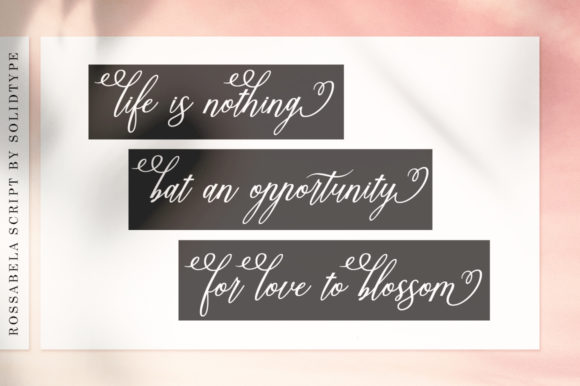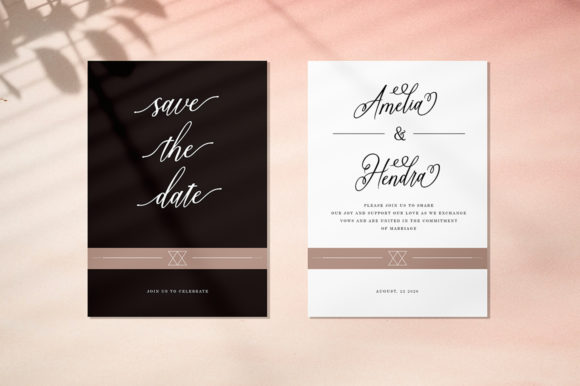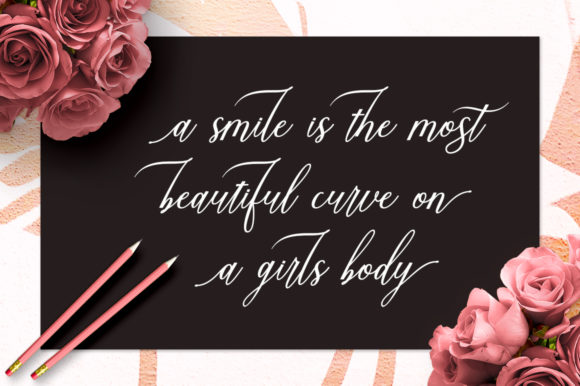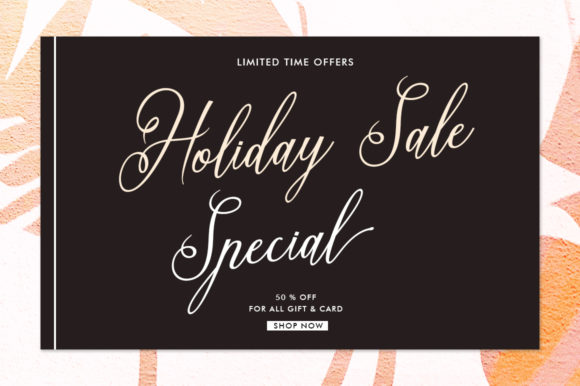
Introduction to Rossabela Font
Have you ever found yourself stuck in a creative rut, desperately searching for the perfect font to elevate your project? I know I have. It’s that moment when you’re pouring your heart and soul into a design, and then suddenly, the right font clicks into place, taking your entire project to the next level. For me, that moment happened when I stumbled upon the elegant and flowing Rossabela Font.
As a designer, I can attest to the value of having high-quality, versatile fonts at your disposal. The Rossabela Font is more than just a pretty face – it’s a design resource that will give your projects a sophisticated, contemporary feel. With its PUA encoding, you’ll have access to a wide range of glyphs and swashes, making it the perfect addition to any creative project.
Key Features of Rossabela Font
- High-quality, free font ideal for creative projects, offering a unique touch to designs.
- Transparent background, allowing for seamless integration into various design resources.
- Comes in a range of styles, suitable for a variety of creative projects, from logos to typography.
- Designed with high resolution, ensuring crisp and clear display in various resolutions.
- Perfect for designers seeking a high-quality, free design resource for their next creative project.
Honest Review: Rossabela Font
As a designer, I’m always on the lookout for high-quality design resources that can elevate my creative projects. The Rossabela Font is one such find that has impressed me with its elegant and sophisticated look.
Here are some things that work well with the Rossabela Font:
- ✨ Beautiful calligraphy-style script that adds a touch of sophistication to any design project
- ✨ Highly legible and easy to read, making it perfect for both digital and print designs
- ✨ Supports multiple languages, making it a great resource for international designs
- ✨ Comes in a variety of weights and styles, allowing for endless customization options
However, there are some limitations to keep in mind:
- ⚠️ The font may not be suitable for designs that require a transparent background, as it has a solid fill
- ⚠️ Some users may find the font’s calligraphy-style script to be too ornate for certain design projects
Designing with Rossabela Font
Rossabela Font is a high-quality design resource that can elevate your creative project to the next level. With its sleek and modern aesthetic, this font is perfect for designers who want to add a touch of sophistication to their work. One of the key features of Rossabela Font is its transparent background, which makes it easy to use in a variety of design applications.
Tips for Getting the Most Out of Rossabela Font
To get the most out of Rossabela Font, be sure to use it in conjunction with other high-quality design resources, such as images and graphics. This will help to create a cohesive and professional-looking design. Additionally, be sure to experiment with different font sizes and styles to find the perfect look for your project.
Common Use Cases for Rossabela Font
Rossabela Font is a versatile font that can be used in a variety of design applications, including business cards, brochures, and website headers. It is also a great choice for designers who want to create a modern and sophisticated look for their creative project.